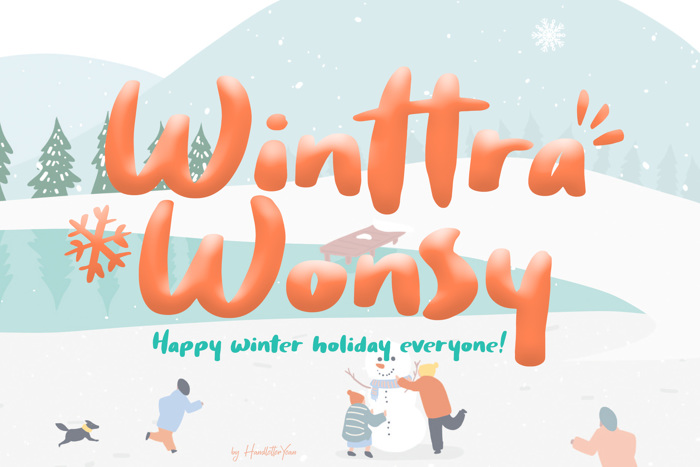
Winttra Wonsy Font
Winter is coming and Winttra Wonsy is here to celebrate it. Winttra Wonsy is a perfect addition to make your holiday and winter more exciting. Feel free to use it for any craftwork, book, cover, name card, poster, logo, magazine, cover, banner, t-shirt, or even artwork on a large scale.